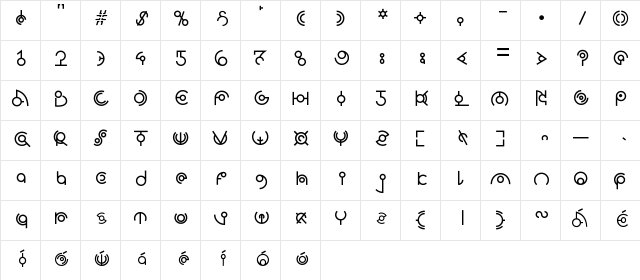
Complete Alien Sans Latin basic Regular glyph index. Displaying only characters natively supported by Alien Sans Latin basic Regular font.
Alien Sans Latin basic is a composed and adaptable typeface that performs quietly and consistently across a wide range of design contexts.